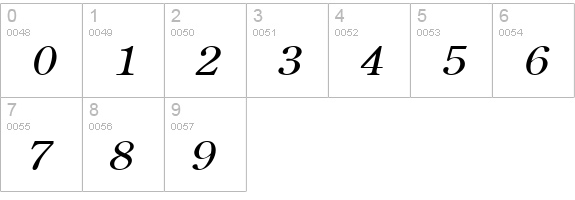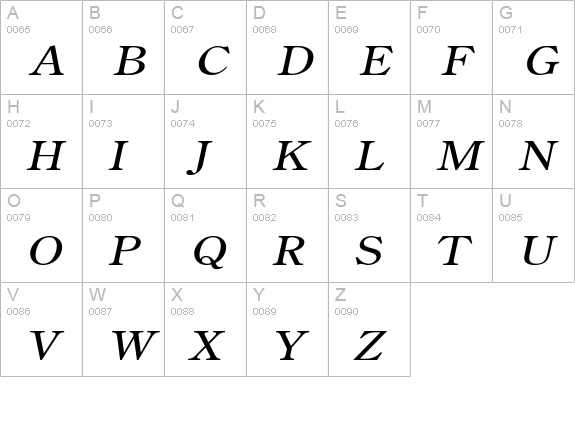
Cento Wide Italic Font Details
Cento Wide Italic is a distinctive, extended-width, italic variant in the Cento typeface family \xE2\x80\x94 well suited to design and typography projects.
Introducing Cento Wide Italic font - a sleek and stylish typeface that exudes elegance and sophistication. This font features a wide design with italicized letterforms that add a touch of flair to any project. The Cento Wide Italic font is perfect for creating eye-catching headlines, branding materials, and editorial designs. What's even better is that this font is available for free download at FontsMarket.com. So, whether you're a designer looking to elevate your projects or a business owner wanting to make a statement with your branding, Cento Wide Italic font has got you covered. Download it today and add a touch of modern sophistication to your designs!